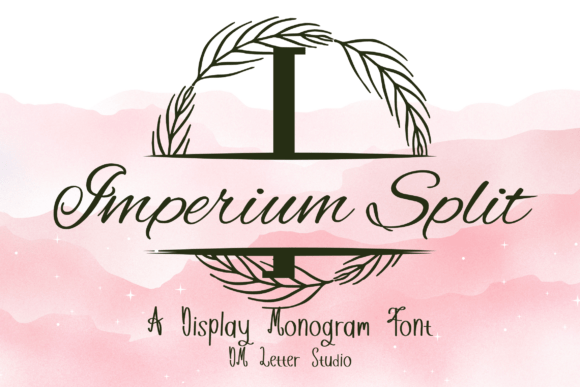
Monogram Magic: Elevating Your Designs with Imperium Split Monogram Font
Have you ever stared at a blank sheet of paper, trying to come up with the perfect monogram for a special occasion or client? It’s a moment of creative frustration that can strike even the most seasoned designers. But what if you had a tool that made this process a breeze? Enter the Imperium Split Monogram Font, a sophisticated and timeless serif typeface designed to make high-end personalization and premium product branding a snap.
This elegant font is perfect for weddings, corporate gifts, packaging, and creative projects, offering a regal and functional monogram that adds prestige and clarity to every design. With its built-in split feature, editing is a cinch – no more manual letter division! Whether you’re creating luxury invitations or signage for a boutique brand, the Imperium Split Monogram Font is a game-changer for designers seeking to elevate their work with a touch of classic sophistication.
- Unique Characteristics: The Imperium Split Monogram Font features a distinctive split monogram design, offering a modern and sleek aesthetic.
Imperium Split Monogram Font Review
I recently had the chance to work with the Imperium Split Monogram Font, and I must say, it’s a unique addition to any design project. ✨ One of the things that stands out about this font is its versatility – it can be used for both modern and traditional designs, making it a great option for those looking to create a cohesive brand identity.
Another advantage of the Imperium Split Monogram Font is its high level of customization. ✨ With so many different monogram styles and lettering options, you can easily create a one-of-a-kind design that reflects your personal brand or style. The font also includes a wide range of sizes and formats, making it easy to use in a variety of applications, from business cards to posters.
Overall, I was impressed with the Imperium Split Monogram Font’s potential for creativity and customization. While it may have some limitations, it’s definitely worth considering for designers looking to add a unique touch to their projects.
For best results, use the Imperium Split Monogram Font for titles, headings, and logos.
It’s ideal for creating a luxurious and elegant design aesthetic.